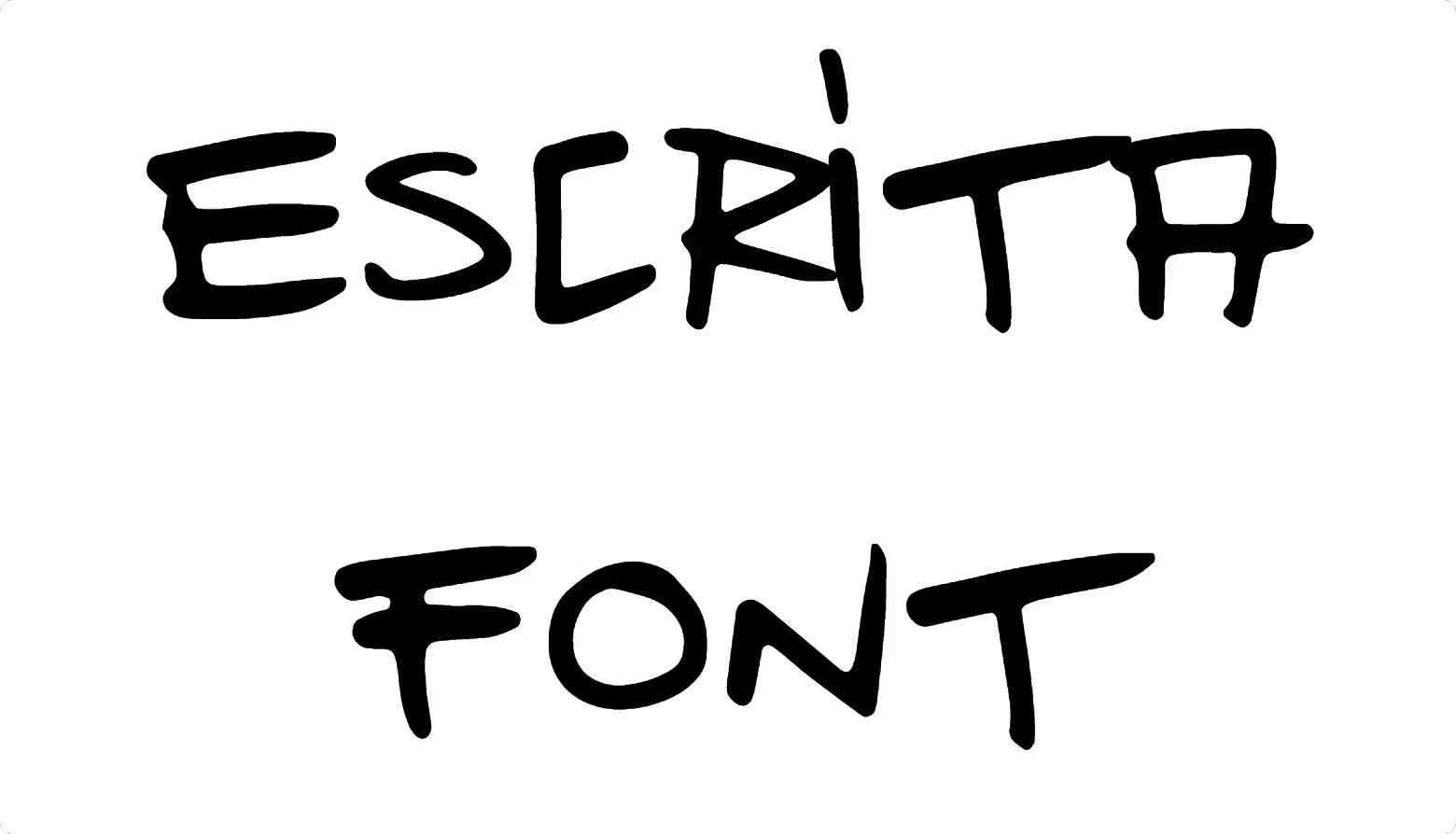
Escrita
Escrita is a handwritten font made by Jan Hoberg. It has a casual, written-with-a-pen look that makes designs feel personal. You can download it for free and test it with your own words in the preview above.
- Extra characters: 13 copy-and-paste alternates (Private Use Area)
What You Can Type With Escrita
You get every letter from A to Z in both cases and all the numbers from 0 to 9, which means Escrita can handle full sentences, dates and prices. Everyday marks like &, !, ? and @ are there too. Thanks to its accented letters, it also works for Spanish, French, German, Portuguese and Italian, not just English.
Where Escrita Works Best
Think of Escrita for greeting cards, journal pages and friendly social posts. Its lowercase letters are tall compared to the capitals, which keeps it readable at smaller sizes. Set it a bit larger than you would a normal text font. Handwriting styles lose their charm once they get too small to read comfortably.
Who designed Escrita font?
Escrita was designed by Jan Hoberg.
Does Escrita support accented letters?
Yes. Escrita includes the accented letters needed for Spanish, French, German, Portuguese and Italian, so it works for more than just English.